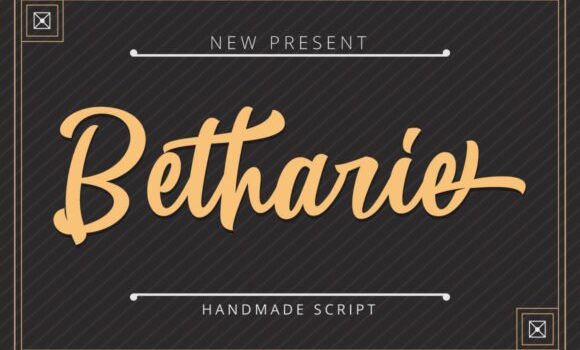
betharie
Betharie Font – Free Download Introduction to Betharie Font Betharie is a bold and unique script font with a friendly appearance. 📸 Preview Gallery 5 images 📌 Product Name Betharie Font 👤 Author masinong 📂 Category Explore ⬇️ Download Betharie